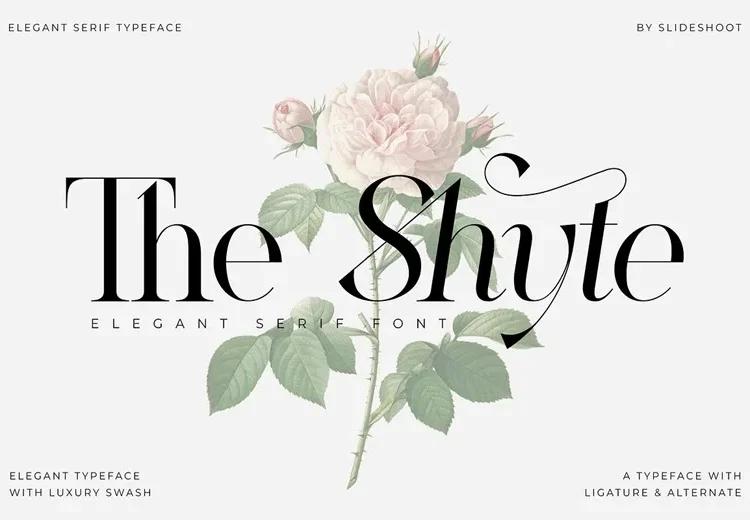
The Shyte Font
The Shyte is a refined serif font designed to deliver a clean, harmonious, and graceful aesthetic. Featuring two essential styles—Regular and Italic—this typeface offers versatility as both styles can complement each other or stand alone beautifully. Its well-crafted characters exude elegance, making it ideal for a wide array of creative applications, including invitation cards, company logos, film titles, business cards, book titles, brand names, and more.
This smooth serif font adds a touch of sophistication to any project, ensuring your designs stand out with class. The stylish alternates and ligatures further enhance its versatility, making The Shyte a reliable choice for professional and artistic projects alike.